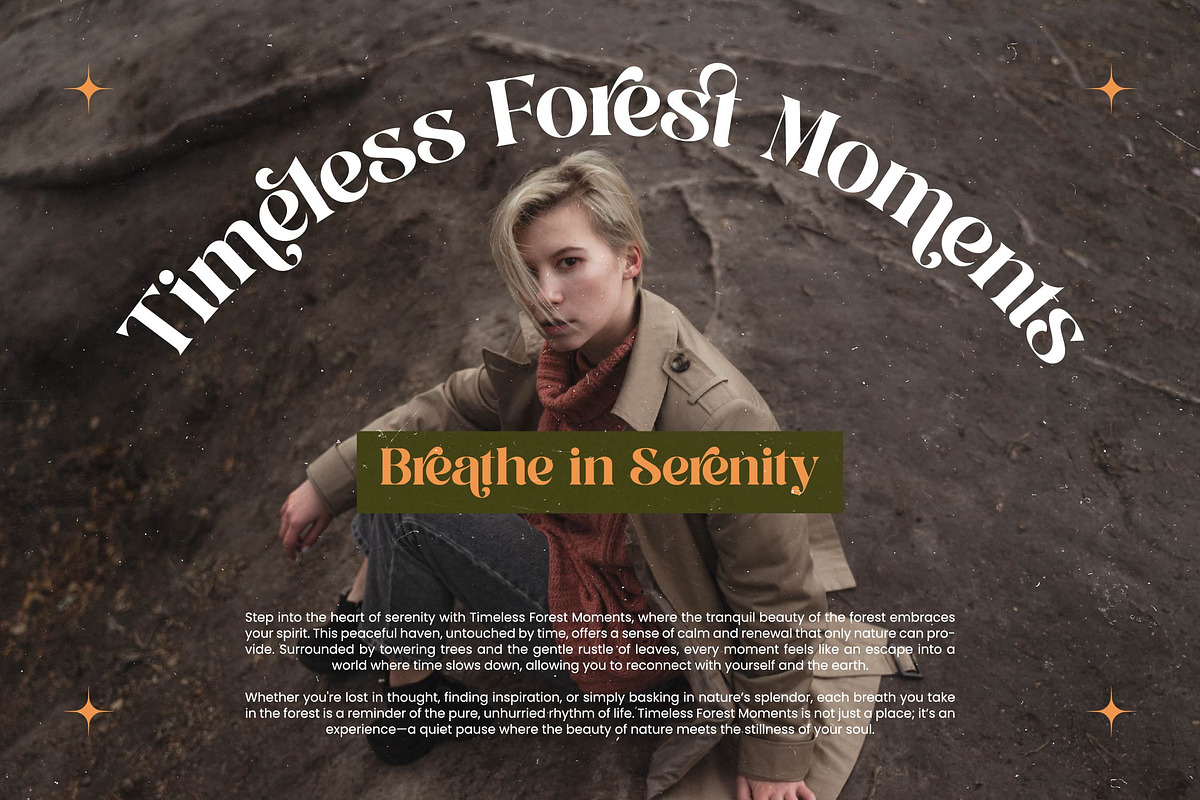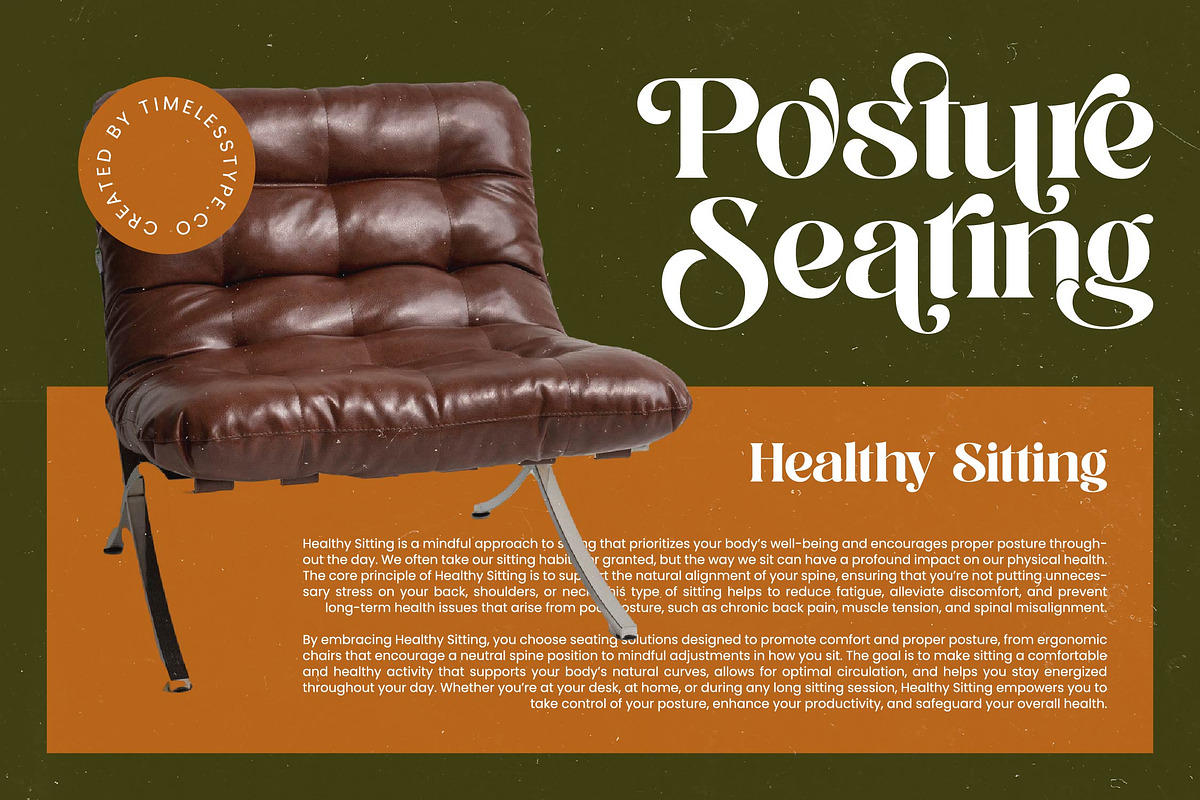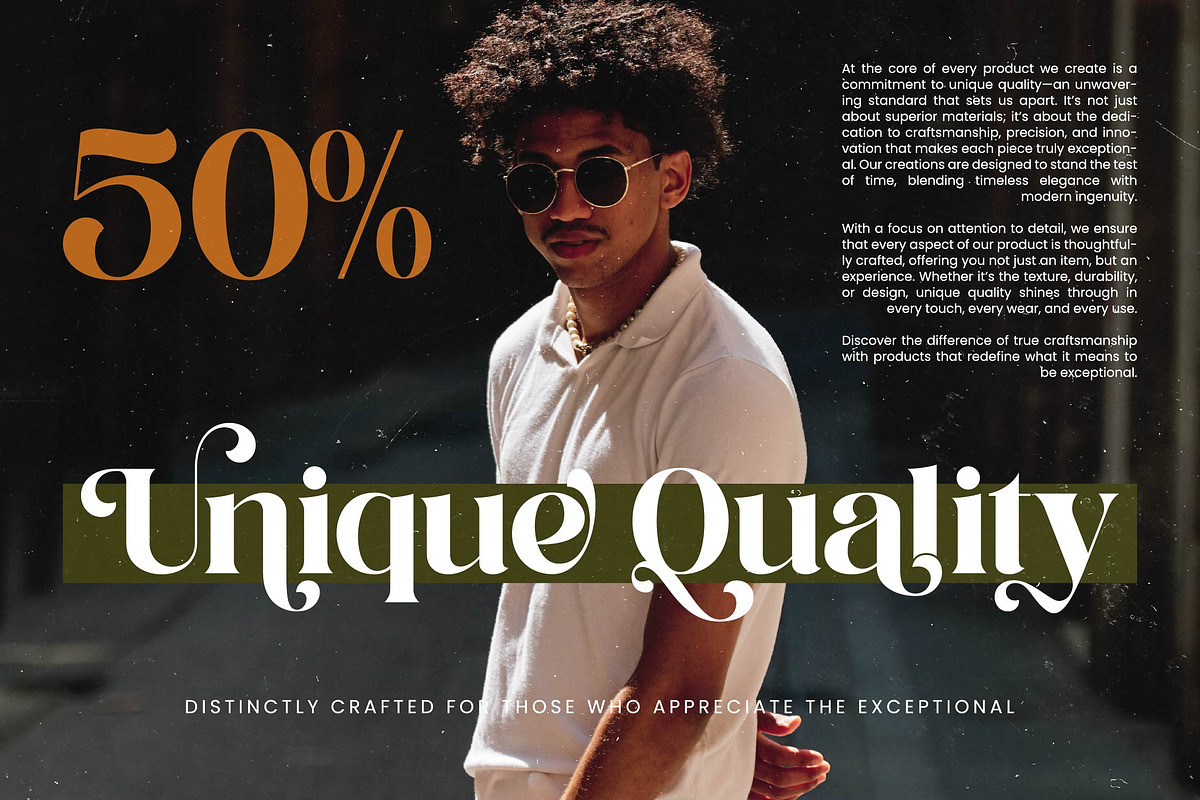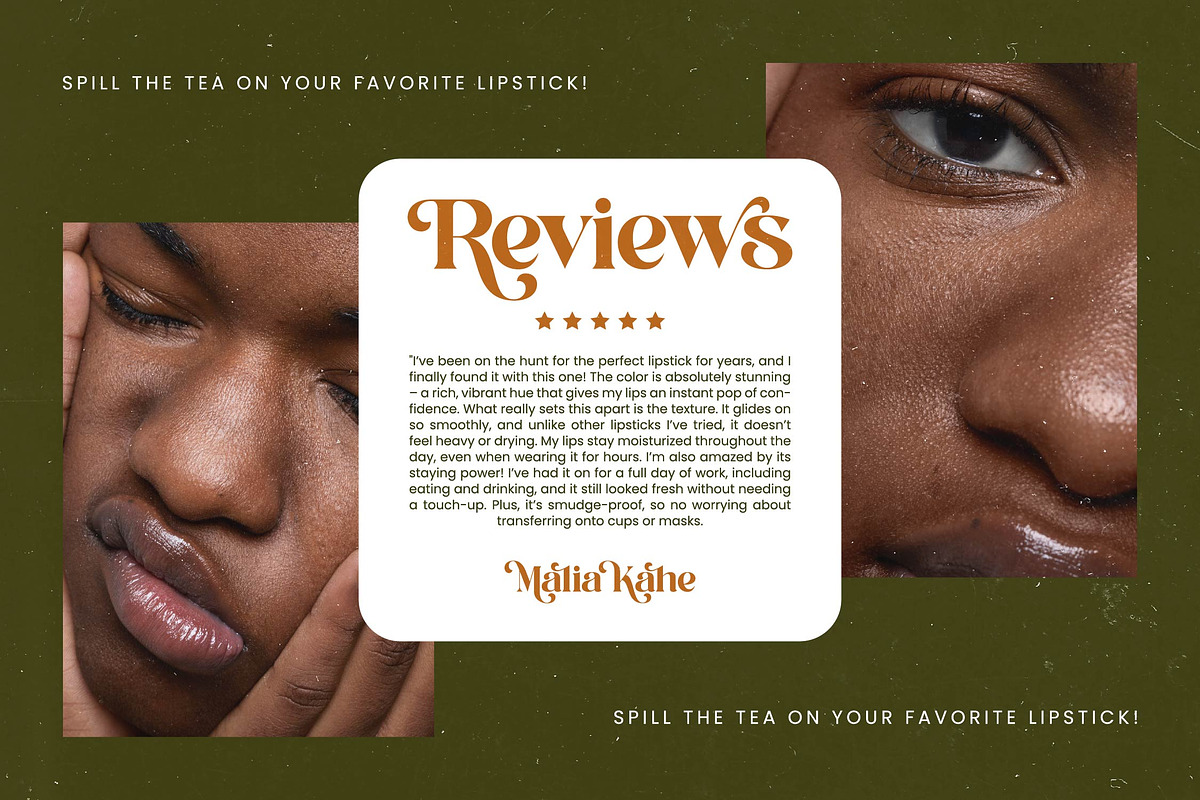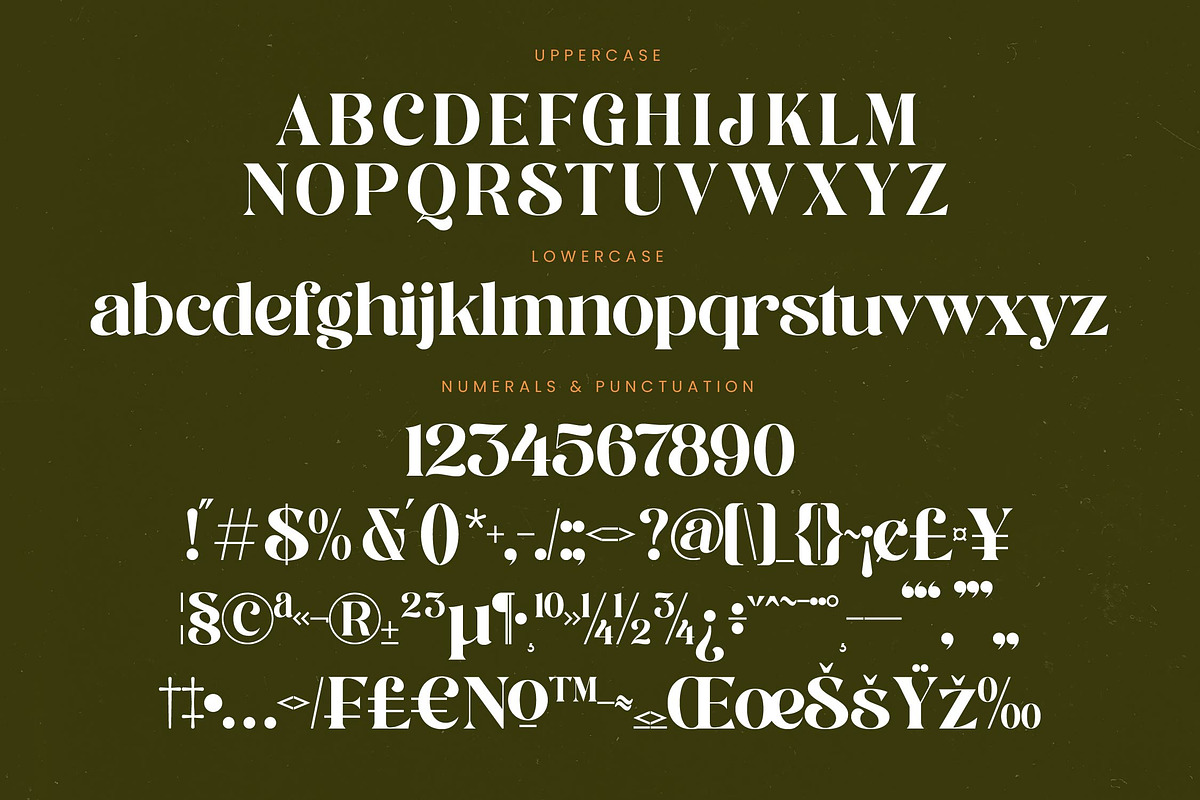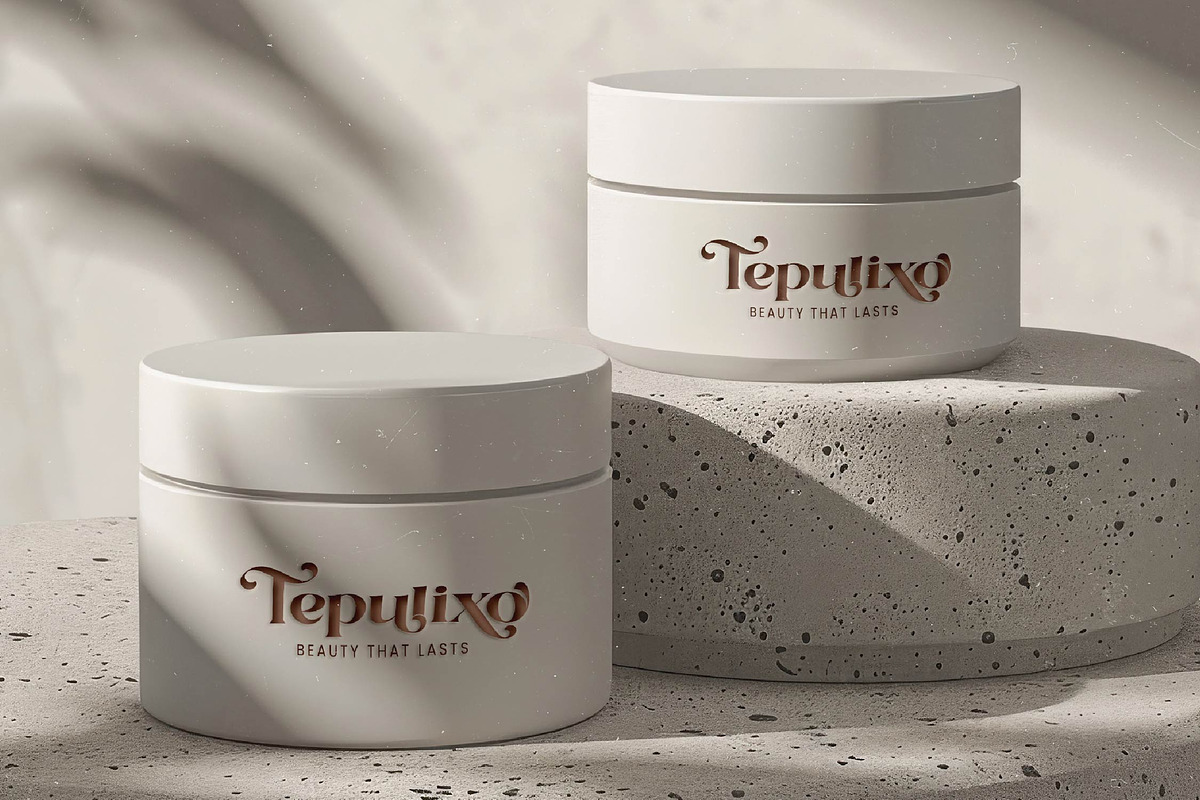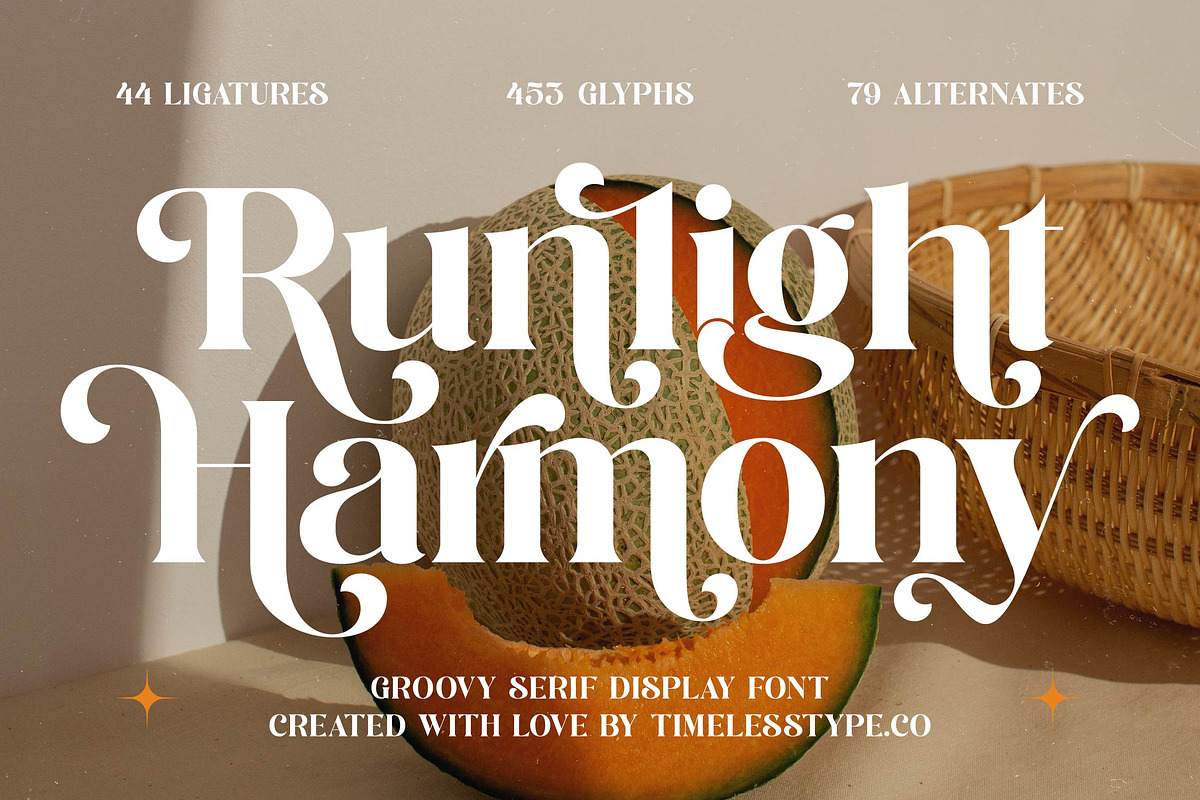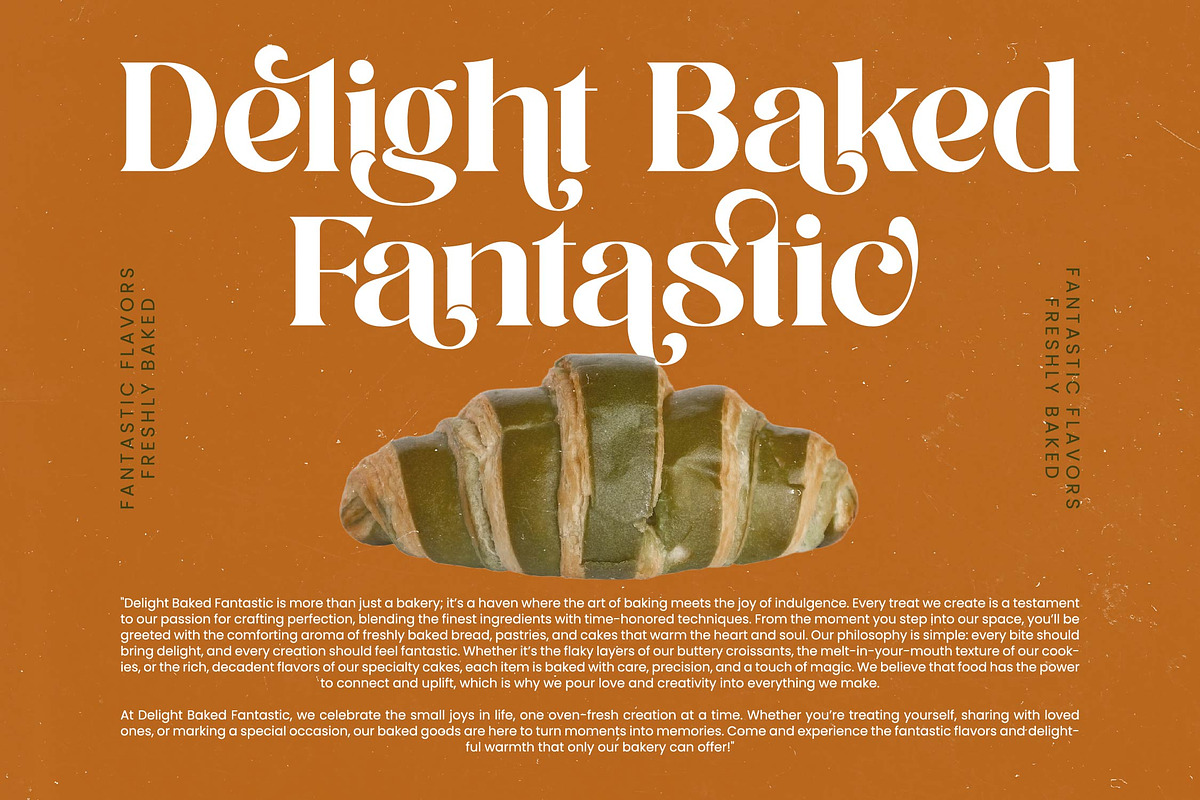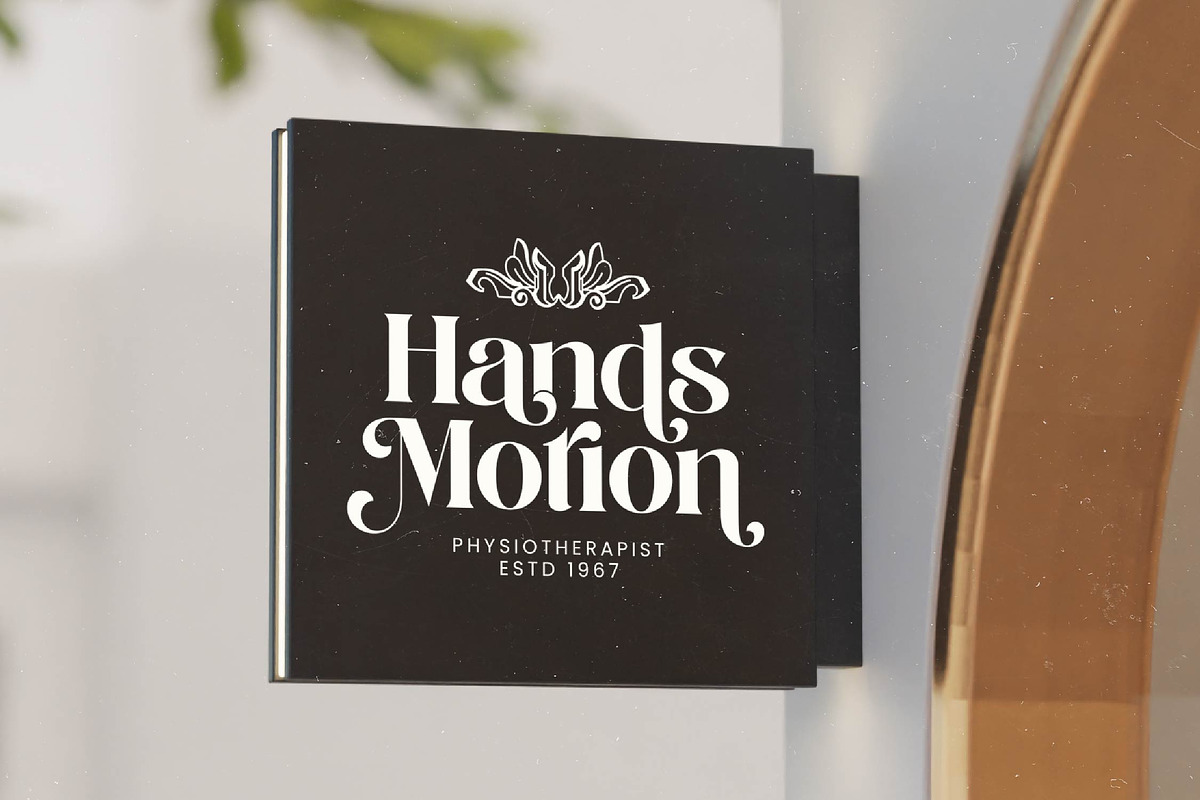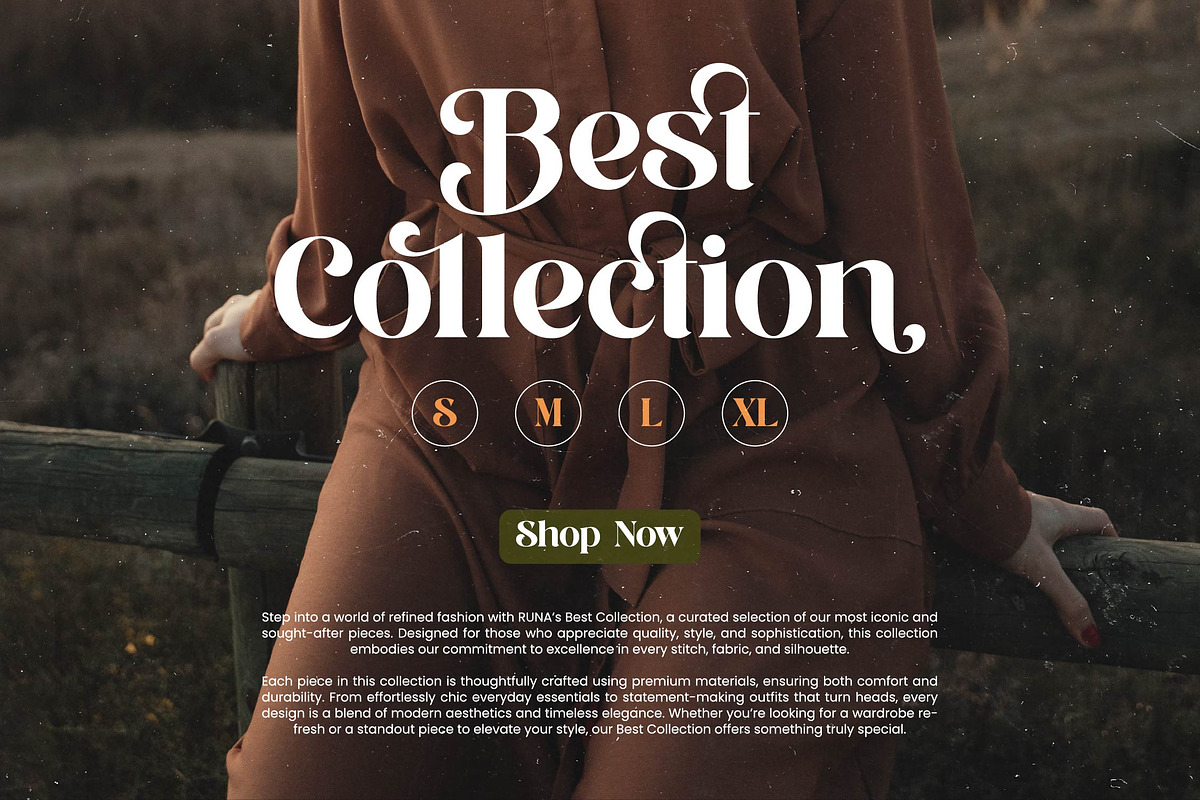
Runlight Harmony Groovy Serif
Introducing Runlight Harmony, a captivating blend of vintage charm and contemporary elegance designed to make your headlines sing. This typeface strikes a perfect balance between nostalgic playfulness and sophisticated editorial flair.
Inspired by the rhythmic curves of the 1970s and the structured beauty of classical serifs, this font evokes a warm, sun-drenched atmosphere. It reflects the organic textures of nature and the timeless appeal of artisan-crafted design in every curve.
This modern serif display delivers a powerful branding impact with its luxury typography and distinct high-contrast serif strokes. Every letterform in this editorial font is meticulously crafted to ensure your message stands out with unrivaled grace and personality.
Embracing the modern serif trend, this typeface is a masterclass in character-driven typography for the current era. It aligns perfectly with the rise of editorial display fonts that prioritize expressive, custom-feeling aesthetics over standard geometric shapes.
Whether you are working on a high-end logo design, a luxury wedding suite, or a minimalist fashion lookbook, this font is your ideal companion. Its versatility shines across branding, premium packaging, and bold editorial layouts that demand attention.
The package includes 455 glyphs featuring a vast array of ligatures and alternates to provide endless creative possibilities. With beautiful swashes and comprehensive multilingual support including international characters, it is ready for any global design project.
- Ligature 44 Alternate 79